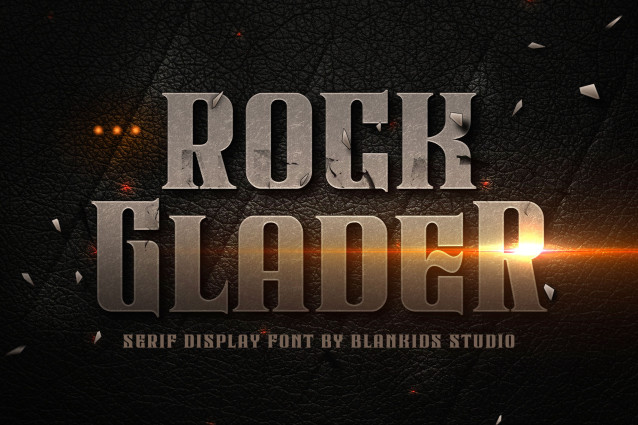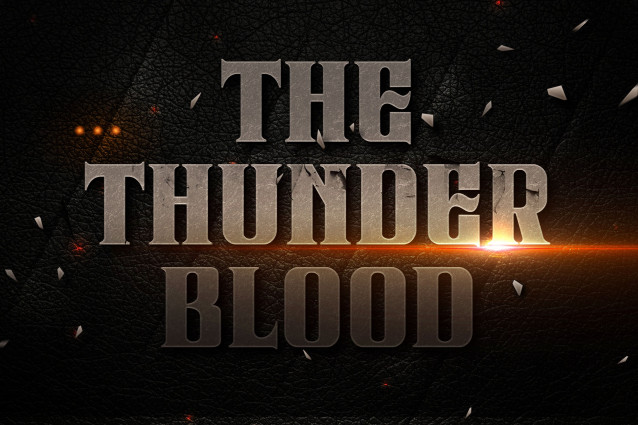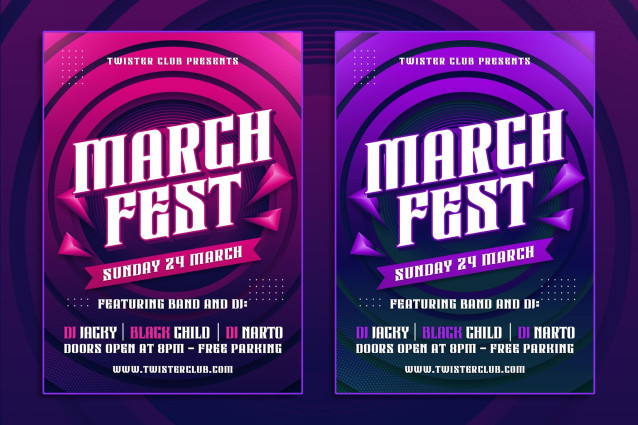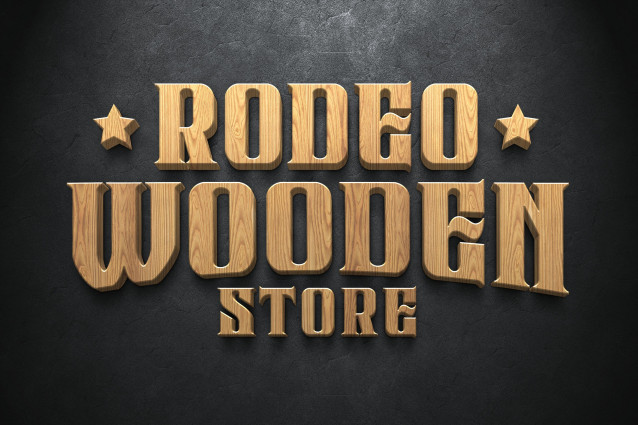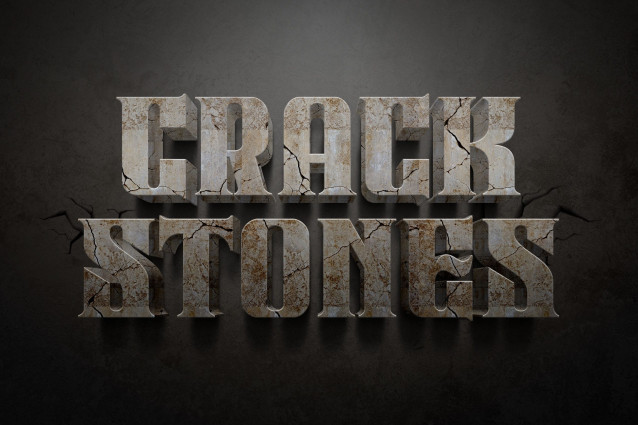
Rock Glader Font
Rock Glader a Serif Display Font, Inspiring from strong style typography. This font is perfect for a design that makes it more attractive and playful. made with a very good level of aesthetics making this font suitable for book cover, poster, packging, merchandise, logotype and much more.